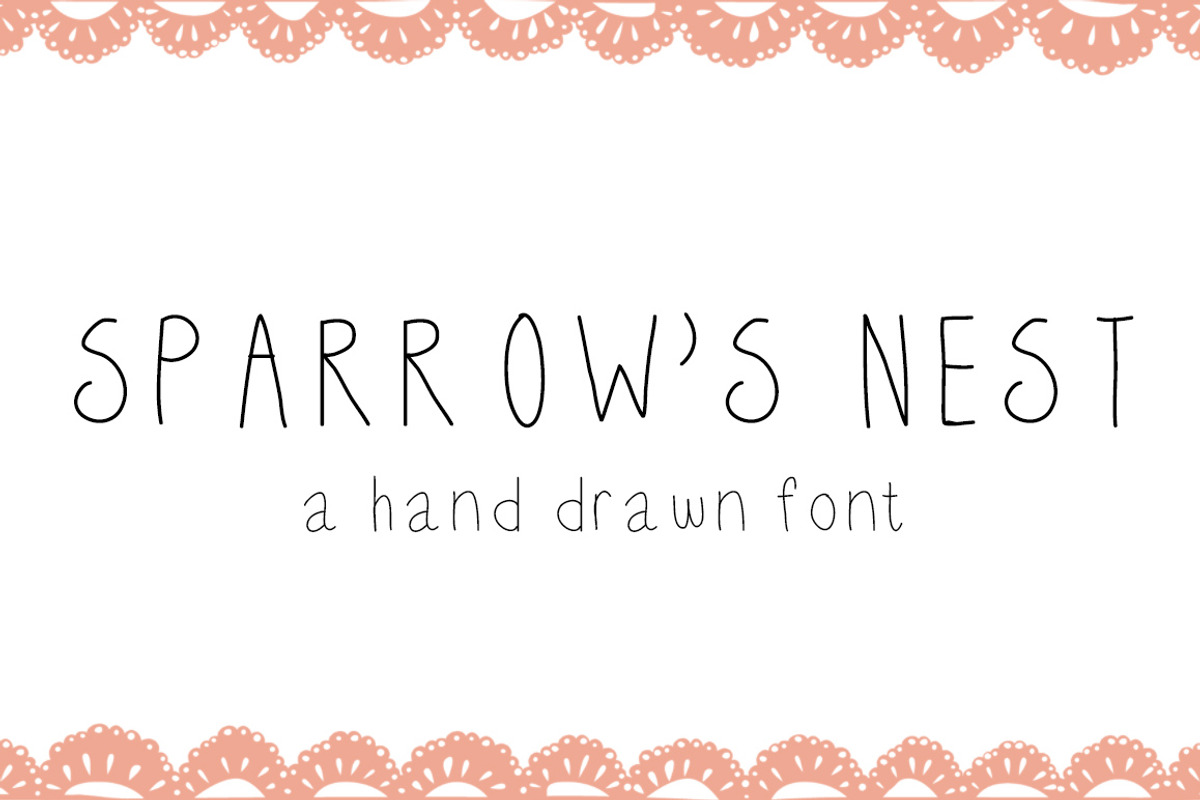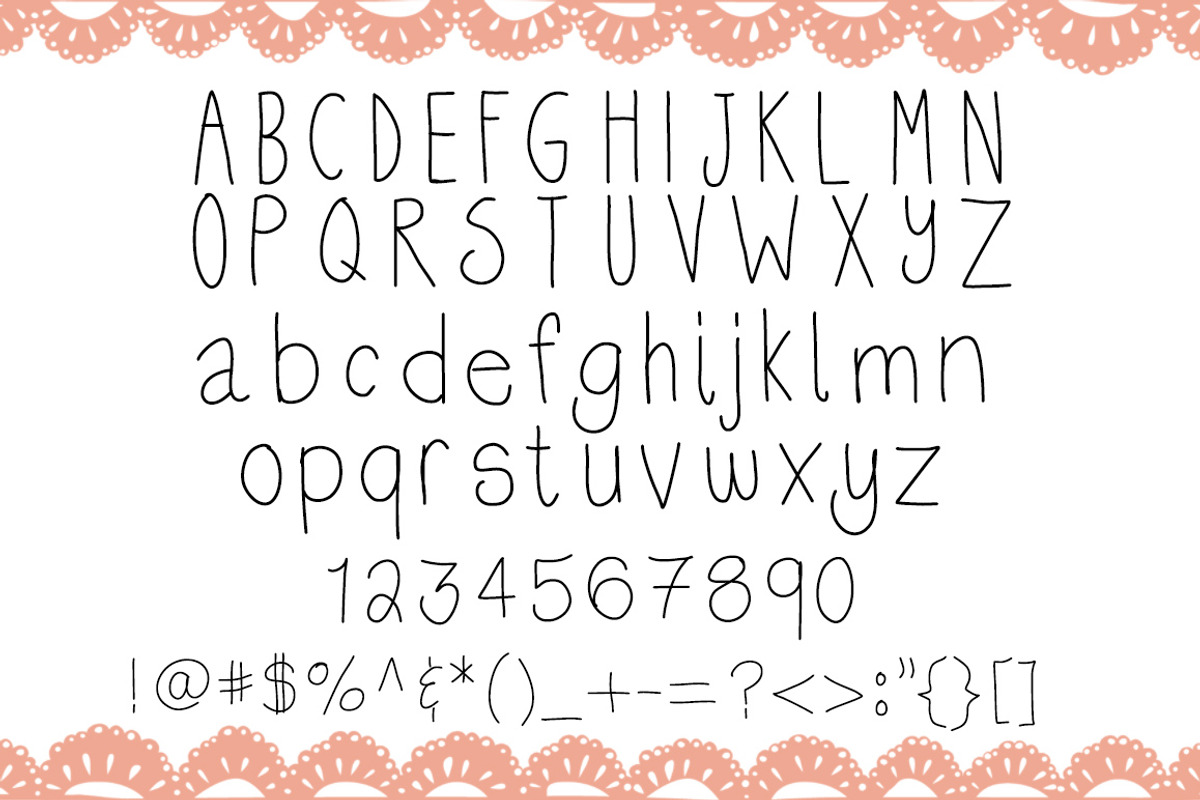
Sparrow's Nest Font
Sparrow's Nest Font by Maybe Sparrow Designs is a font selected for branding, posters, packaging, typography.
Sparrow's Nest Font by Maybe Sparrow Designs fits naturally into Branding, posters, packaging, typography.